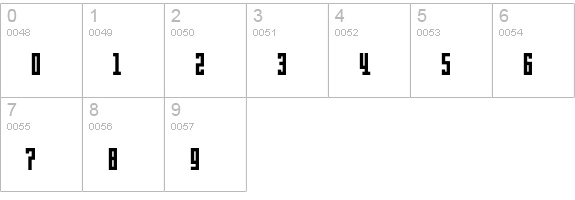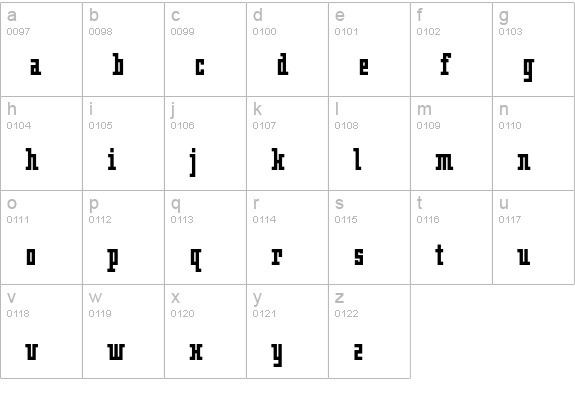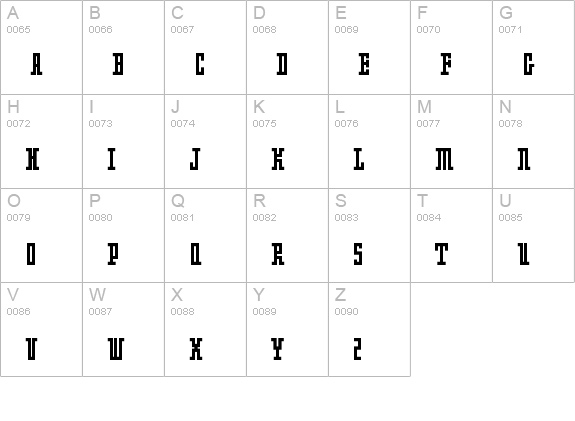
OblongBoldA Font Details
OblongBoldA is a modern and stylish font that exudes confidence and sophistication. With its bold and oblong shapes, this typeface makes a striking statement in any design project. The strong lines and unique curves of OblongBoldA create a sense of power and elegance, perfect for headlines, logos, and branding materials. What sets OblongBoldA apart is not only its bold appearance but also its versatility. This font can be used for a wide range of design applications, from posters to packaging to social media graphics. Its clean and legible design ensures that your message will always stand out, no matter the context. And the best part? OblongBoldA is available for free download at FontsMarket.com. Whether you're a seasoned designer looking to add a fresh touch to your projects or a beginner exploring new fonts, OblongBoldA is a must-have in your font collection. Download it today and unleash the power of this bold and impactful typeface in your designs.